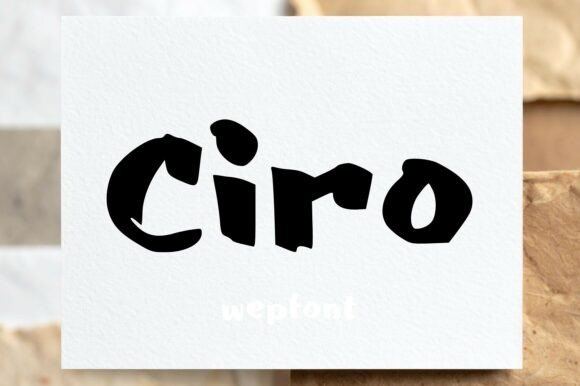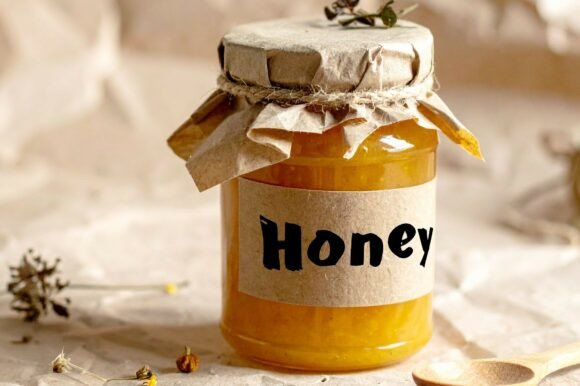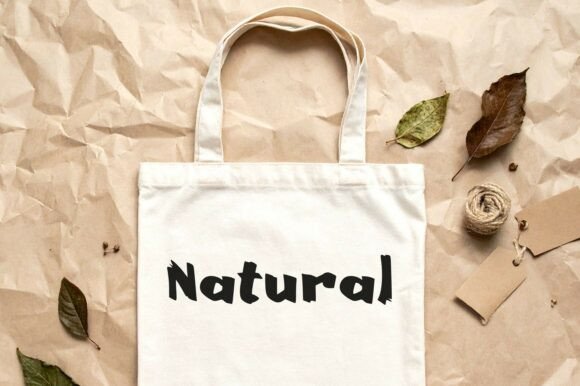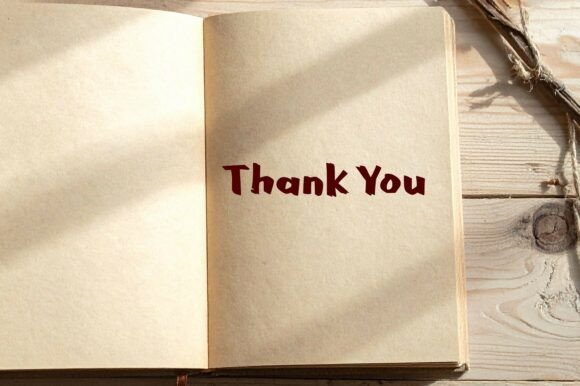
Meet Ciro: The Handcrafted Display Font That Brings Warmth and Charm to Your Designs
In the world of typography, few fonts manage to capture the essence of a handcrafted masterpiece quite like Ciro. This captivating display font embodies the warmth and charm of a carefully crafted piece of art, bringing a sense of homespun appeal to any project it’s a part of. With its delightful, rounded features and pleasant, jovial character, Ciro is the perfect addition to designs that aim to convey a sense of friendliness and approachability.
The Characteristics of Ciro
From the moment Ciro graces your project, it illuminates your designs with its alluring presence. The font’s characters flaunt gentle curves and rounded features that create a sense of softness, making it an ideal choice for designers who want to add a touch of warmth to their work. The buoyant lettering, masterfully softened by subtle curves, infuses Ciro with an irresistible cheerful energy that’s hard to ignore.
One of the standout features of Ciro is its artisanal details. The font’s digital design showcases subtle variations that exemplify an enduring, homemade aesthetic. This makes Ciro a perfect fit for environments that emulate a green, DIY essence. Whether you’re working on a project that requires a natural, earthy feel or a design that needs a touch of playfulness, Ciro is the perfect choice.
What Makes Ciro Special
So, what sets Ciro apart from other display fonts? For starters, its distinctly radiant lettering is built to enhance your designs, offering clear spacing and novel structures. This makes it an absolute treasure for striking headlines or even fine-print labels. The font’s lack of imposing intimidation creates a canvas where innovation thrives, allowing designers to experiment with different styles and ideas.
Ciro’s pleasant, jovial character interacts harmoniously with its rounded features, creating a sense of balance that’s hard to achieve with other fonts. The font’s gentle curves and soft edges make it easy to read, even at smaller sizes, making it a versatile choice for a wide range of design applications.
Ciro is a font that’s specifically designed with designers and crafters in mind. Its handcrafted aesthetic and DIY essence make it a perfect fit for projects that require a personal touch. Whether you’re working on a branding project, a packaging design, or a craft project that requires a unique font, Ciro is the perfect choice.
For designers, Ciro offers a wide range of possibilities. Its clear spacing and novel structures make it easy to use in a variety of design applications, from print to digital. The font’s flexibility also makes it a great choice for crafters who want to add a personal touch to their projects.
Using Ciro in Your Designs
So, how can you use Ciro in your designs? The possibilities are endless. Here are a few ideas to get you started:
- Use Ciro as a headline font to add a touch of warmth and charm to your designs.
- Pair Ciro with other fonts to create a unique and eye-catching combination.
- Use Ciro for packaging design, branding projects, or craft projects that require a personal touch.
In conclusion, Ciro is a captivating display font that embodies the warmth and charm of a handcrafted masterpiece. Its delightful, rounded features and pleasant, jovial character make it a perfect fit for designs that aim to convey a sense of friendliness and approachability. With its artisanal details and DIY essence, Ciro is a font that’s specifically designed with designers and crafters in mind. Whether you’re working on a branding project, a packaging design, or a craft project that requires a unique font, Ciro is the perfect choice.